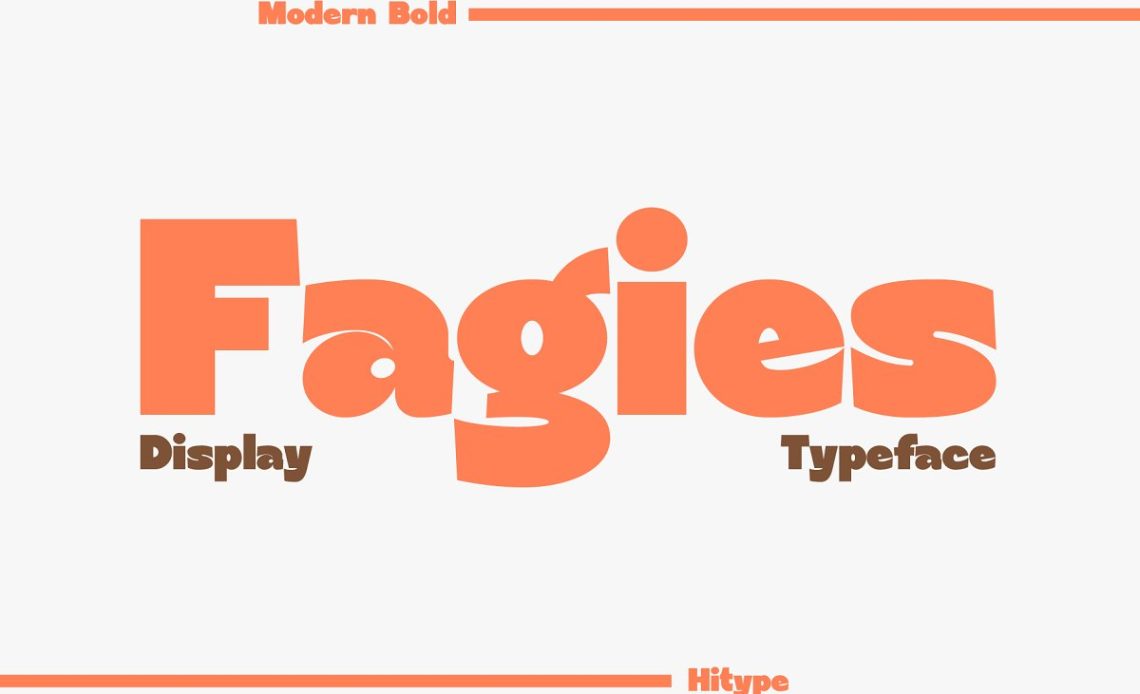
Are you in search of the perfect font to elevate your brand's visual appeal? Look no further than Fagies Bold Display Typeface! Created by Hi Type, this modern and bold sans serif font is the ultimate solution for designers and business owners alike.
Fagies' standout characters make it the best font for TV display and the ideal choice for creating impactful logos, posters, packaging, branding, invitations, notes, and more. Its versatility is unmatched, making it suitable for any project that requires a bold and contemporary touch.
When you download Fagies, you'll get access to both fagies.otf and fagies.ttf file formats. But it's not just the file formats that make Fagies a must-have for your design toolkit. The font's aesthetic qualities are equally impressive, with its bold, modern, and eye-catching look that captures the attention of viewers.
Choose Fagies for its ability to evoke emotions in viewers, giving them a sense of trust, confidence, and sophistication. Whether you're a business owner or a designer, Fagies is the font that can take your brand to the next level.